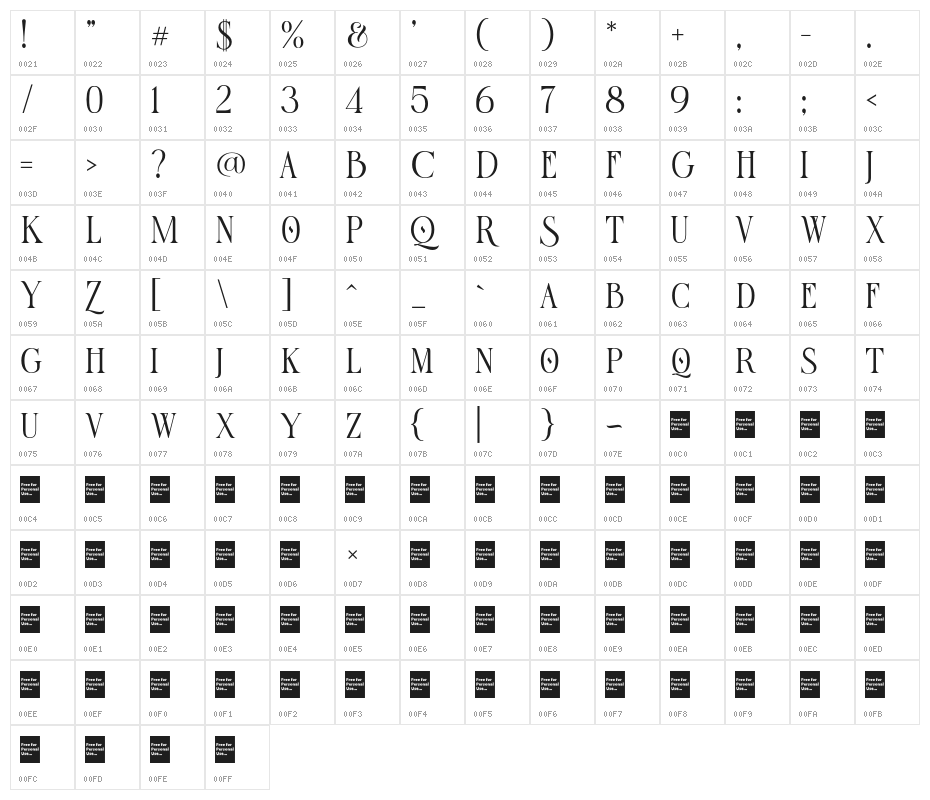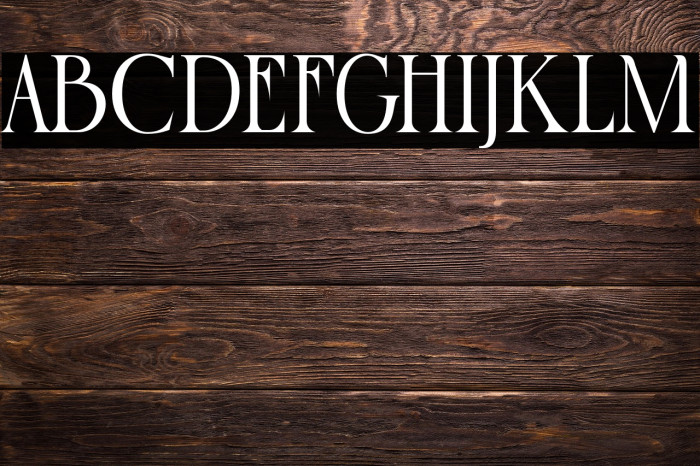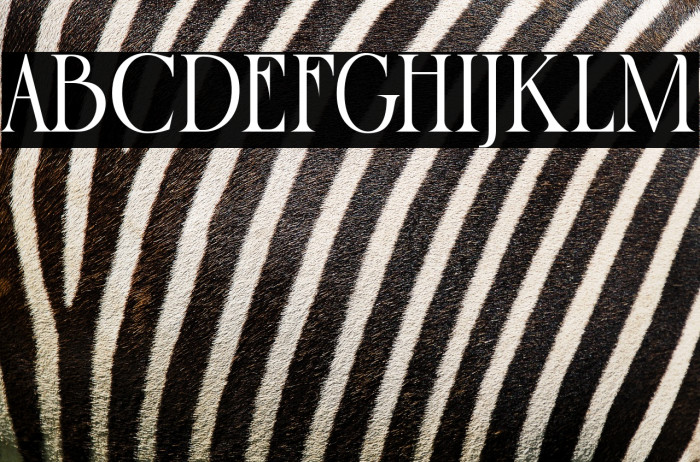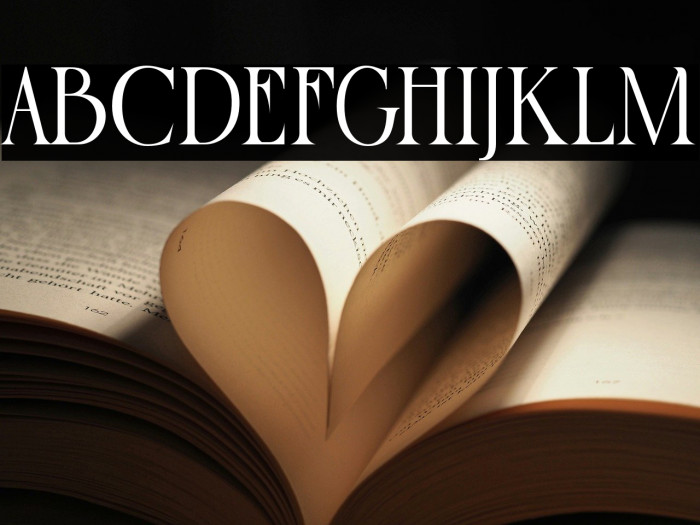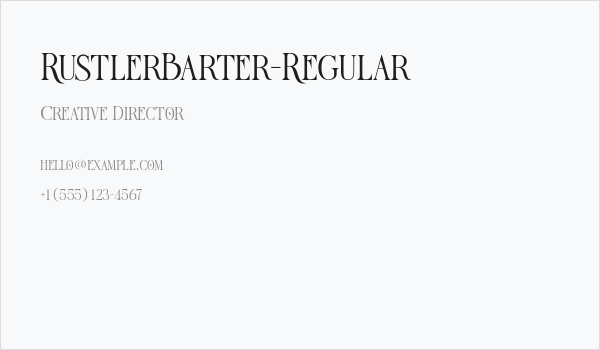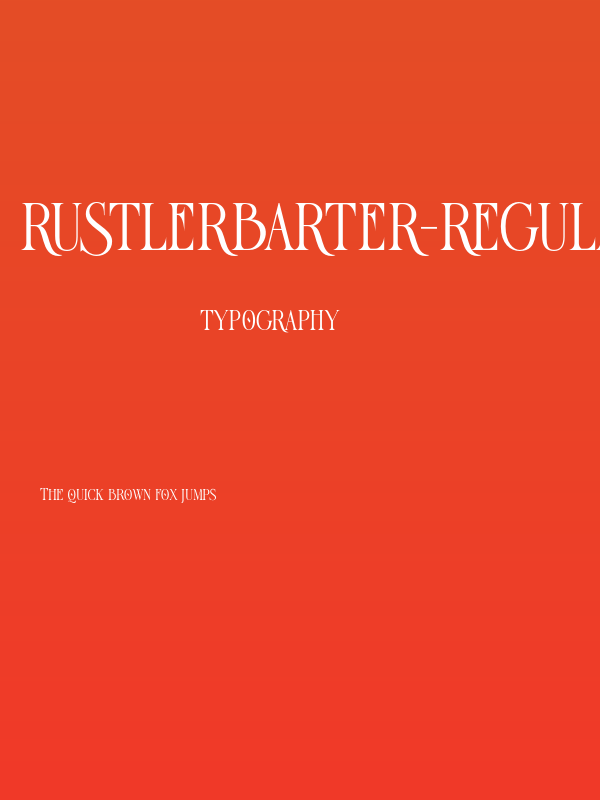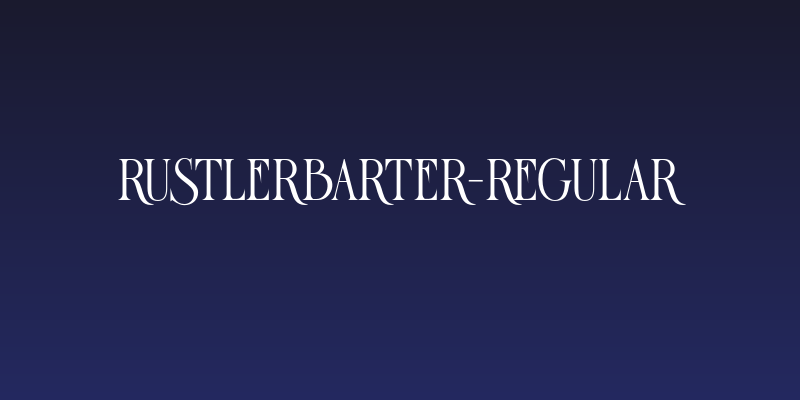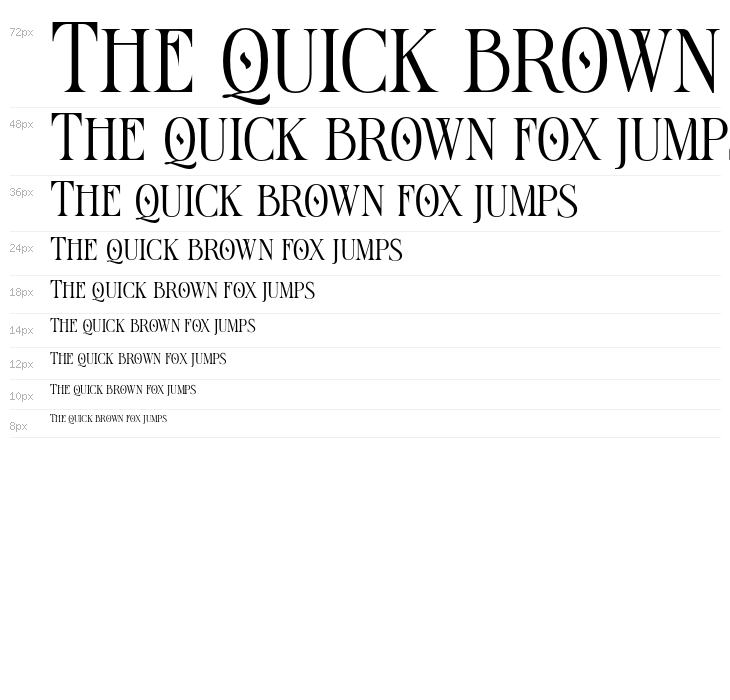
RustlerBarter-Regular Font
RustlerBarter-Regular Description
This font exhibits a unique blend of elegance and boldness, characterized by its sharp serifs and distinct curves. The uppercase letters feature a striking contrast between thick and thin strokes, giving it a sophisticated appearance. The lowercase letters maintain a consistent style, with a slightly more subdued flair. Numbers are crafted with a similar attention to detail, ensuring readability while maintaining the font's overall aesthetic. Special characters are designed to complement the alphabet, adding a touch of creativity and uniqueness. The font's overall design is both classic and modern, making it versatile for various applications.
| Use Case | Logos, Headlines, Editorial design |
| Proposed Projects | Ideal for branding, editorial design, luxury packaging, and high-end invitations. |